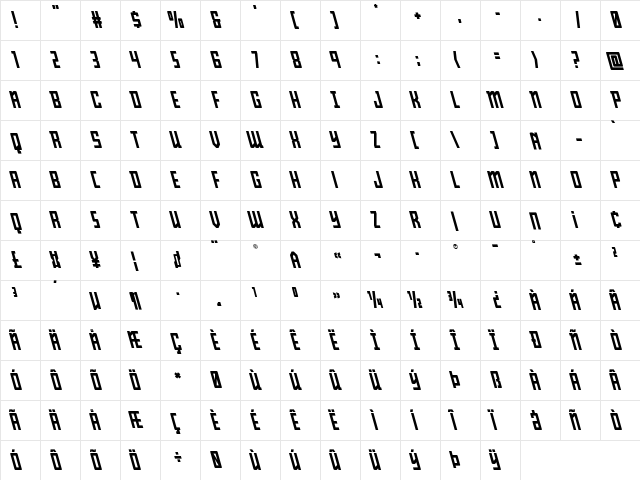
Young Patriot Leftalic Italic
Design Context for Young Patriot Leftalic Typeface
Young Patriot Leftalic offers clean, dependable letterforms without strong stylistic allegiance, making it a practical choice for designers who need flexibility. Its italic angle brings a sense of urgency and motion to the letterforms.
Pro Tip: Use Young Patriot Leftalic for emphasis, pull quotes, and subheadings where its slanted energy can add rhythm to the layout.